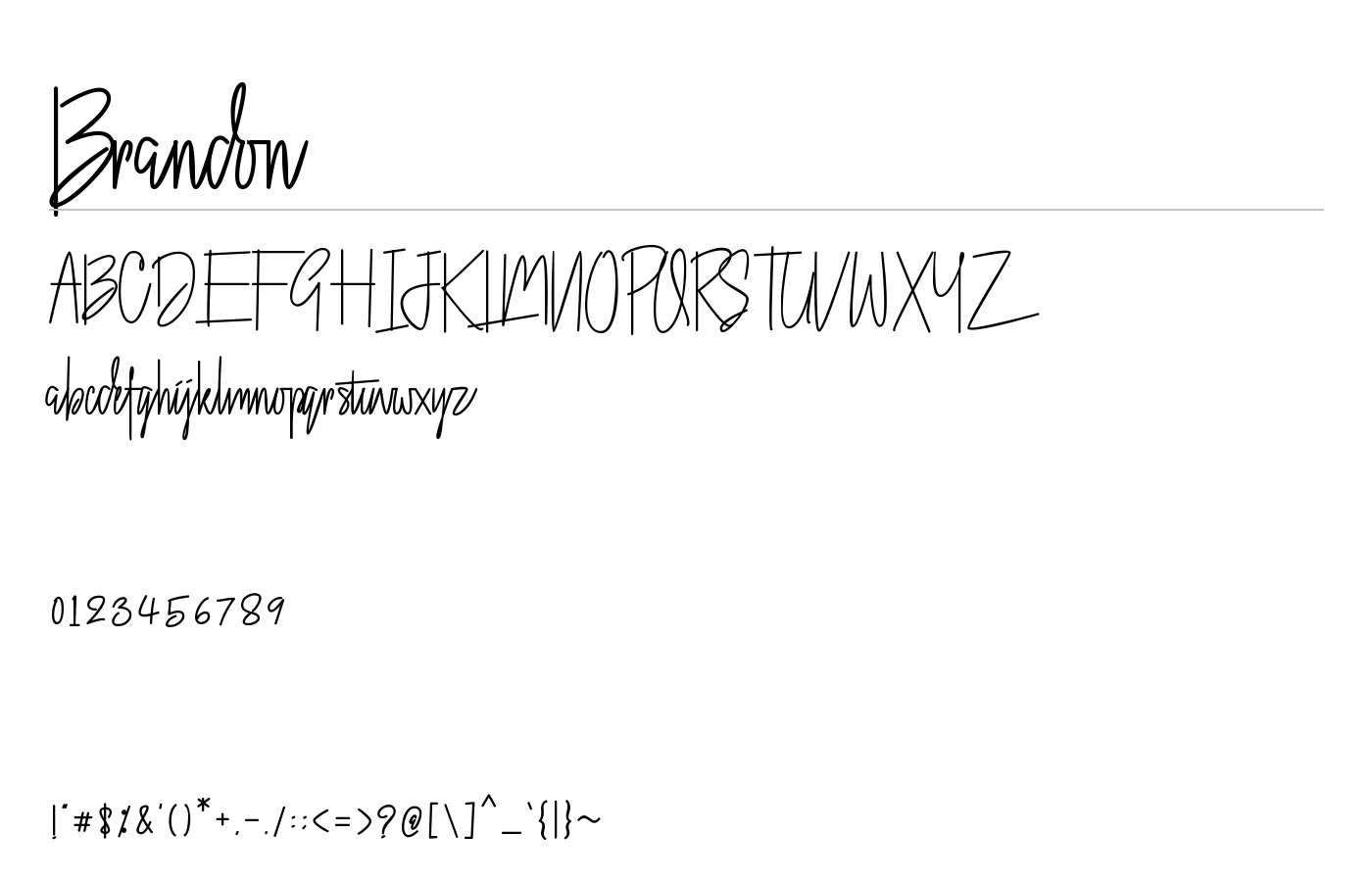
Brandon is a tall, narrow script font with a casual and hand-drawn feel, featuring thin, irregular strokes that create an organic and expressive look. Its elongated letterforms and playful style make it ideal for creative branding, informal invitations, and artistic projects that seek a personal and approachable vibe. This font works well where a unique, quirky touch is desired, adding character without overwhelming the design.
Brandon Font